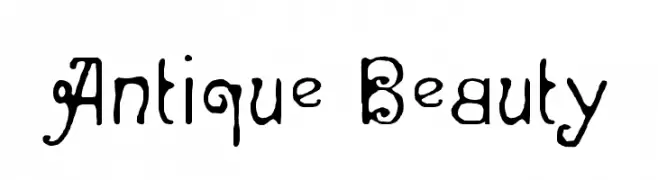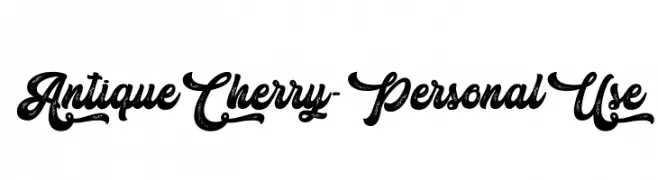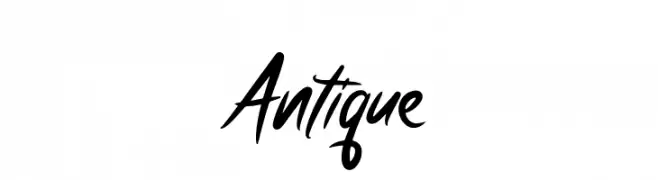
A bold, brush-style font with dynamic, jagged strokes.
A cursive, handwritten font with elegant loops and a modern calligraphic style.
A bold, decorative font with a vintage, three-dimensional effect.
A dynamic, expressive handwritten font with fluid strokes.
A decorative and whimsical font with intricate curls and swirls.
A whimsical, hand-drawn style with a vintage flair.
A vintage-inspired font with elegant, narrow characters and unique flourishes.
A bold, flowing script font with elegant, interconnected characters.
A vintage, ornate script font with elegant loops and flourishes.